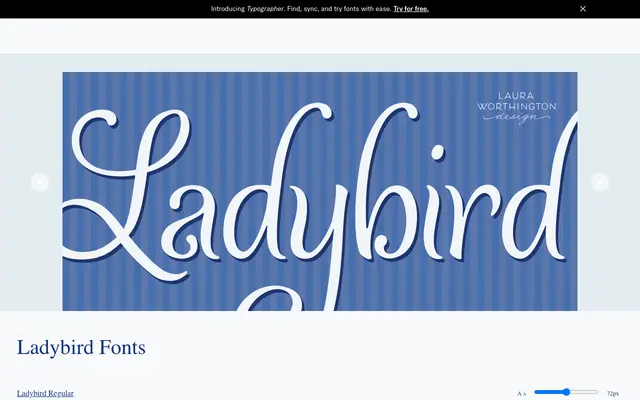
Ladybird
A compact, playful display face with arcing ascenders, curved descenders and a collection of ligatures and alternates suited to informal and youth-oriented settings.
Ladybird is a single-weight display face with rounded, cosy letterforms and characteristic arcing ascenders with curled descenders that give it a cheerful, lightweight feel. Common ligatures and stylistic alternates add variety and a sense of spontaneity across text. The font is coded to allow access to alternates and ornaments without professional design software, broadening its accessibility for casual users.
Ladybird has the playful, rounded letterforms and arcing strokes of a casual script or informal display face, with ligatures and alternates typical of decorative script-adjacent designs rather than a traditional upright category.